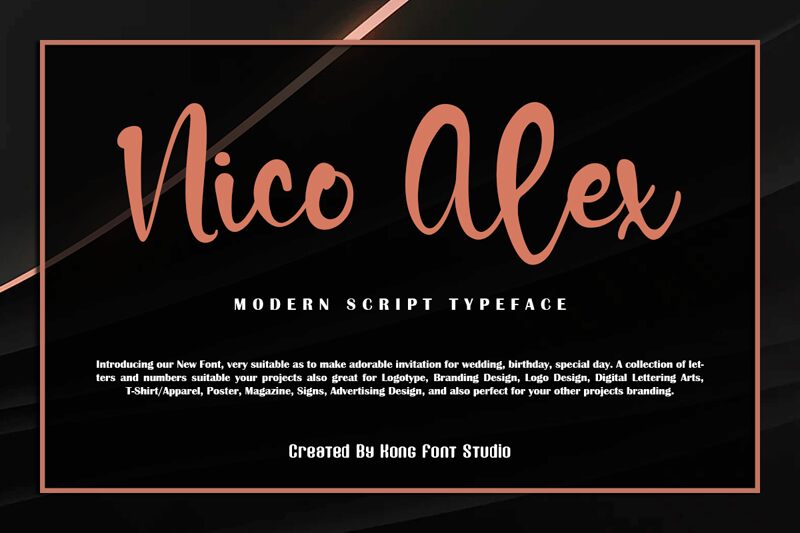
Nico Alex
Nico Alex is the modern script font that breathes life into your typography. Designed by Kong Font, this semi-bold typeface boasts a unique combination of calligraphic strokes and contemporary appeal. Whether you're crafting invitations for a formal event or designing a luxurious brand identity, Nico Alex will elevate your projects to new heights of sophistication. Its fluid curves and elegant letterforms make it perfect for wedding stationery, branding materials, quotes, magazines, and social media graphics. Get ready to impress your audience with the stunning Nico Alex font today.